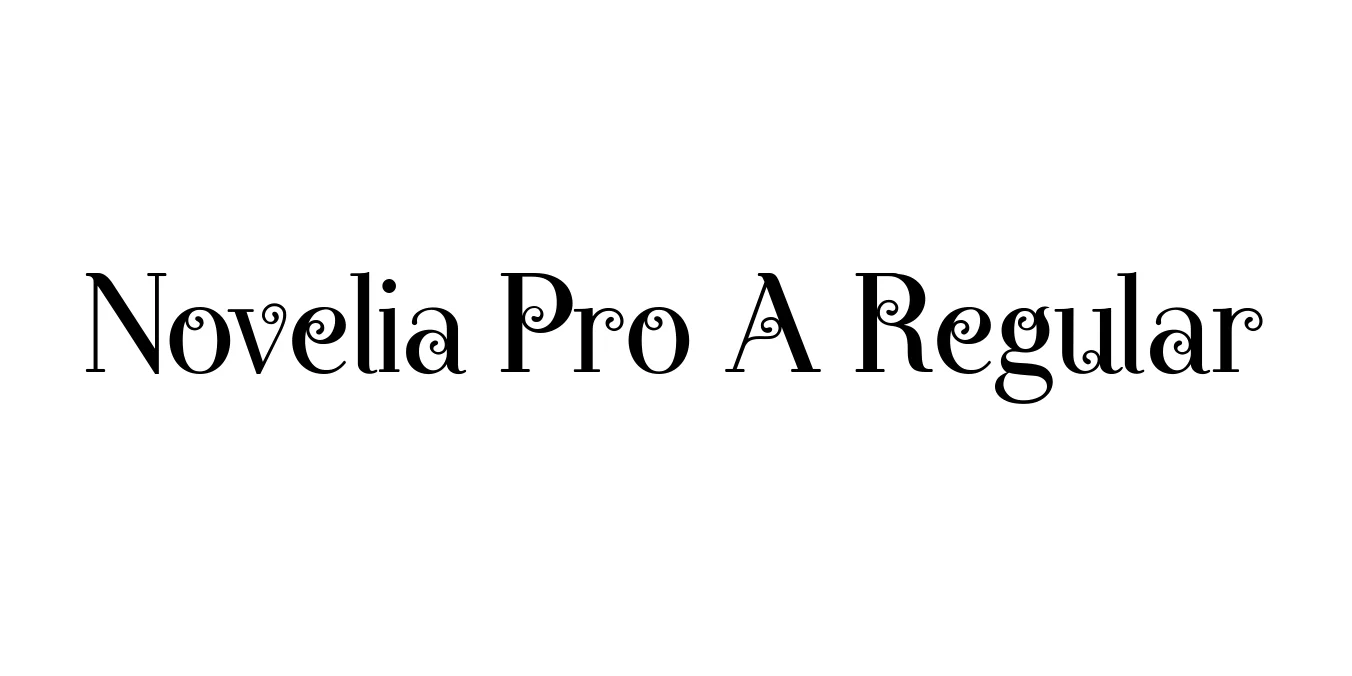
Novelia Pro A Regular
Designed by Craft Supply Co
Novelia Pro A Regular is a sophisticated and elegant typeface designed to bring a touch of class to modern typography projects. Its refined serifs and balanced proportions make it a standout choice for high-end branding and editorial design. The font features a unique blend of classic aesthetics and contemporary versatility, allowing it to function beautifully in both large headings and smaller body text contexts, making it a staple for designers seeking a premium look.
Developed by Craft Supply Co, this font family includes a wide array of stylistic alternates and ligatures, providing designers with the creative freedom to craft bespoke layouts. Whether used for luxury packaging, wedding invitations, or digital magazine covers, Novelia Pro A Regular ensures a professional and timeless appeal. Its clean lines and graceful curves are meticulously crafted to maintain legibility while exuding an air of exclusivity and refinement.
Novelia Pro A Regular Best Uses
Ideal for creating luxury logos and high-end brand identities.
Perfect for magazine headings, pull quotes, and fashion layouts.
Adds a sophisticated and romantic touch to invitations and programs.
Enhances the premium feel of cosmetic or luxury product labels.